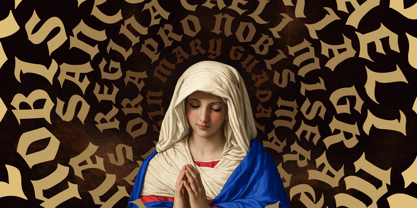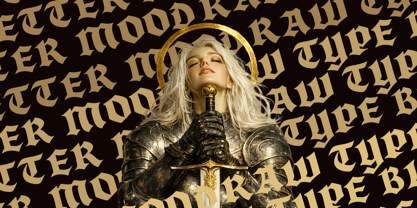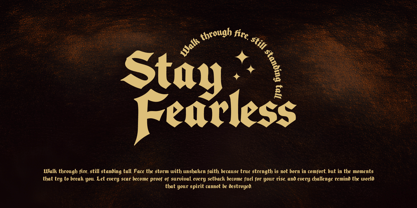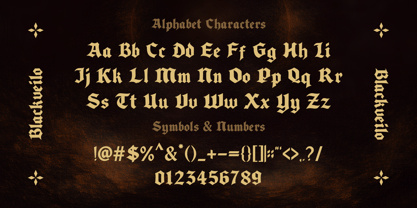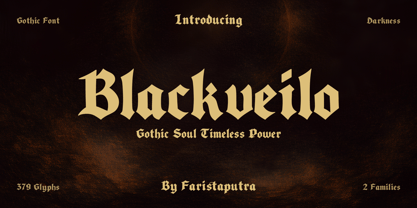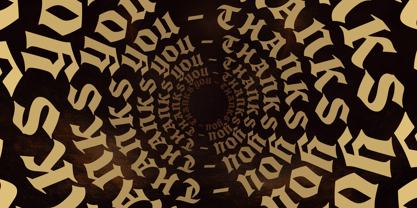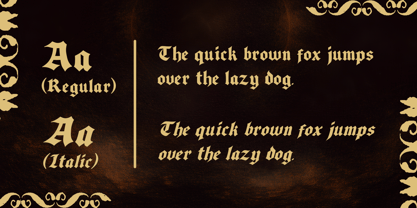
Blackveilo
von Faristaputra
Die Schriftfamilie Blackveilo wurde von Frederik Aristaputra entworfen und von Faristaputra veröffentlicht. Blackveilo enthält 2 Stile und Familienpaketoptionen. Mehr über diese Familie
Blackveilo is a gothic blackletter display font that seamlessly blends dark elegance with timeless strength. Drawing inspiration from medieval letterforms, it showcases bold shapes, sharp details, and a commanding visual presence that instantly adds drama and character to any design. Ideal for logos, posters, branding, album covers, apparel, packaging, and various display projects, Blackveilo is crafted for designs that require a bold, classic, and unforgettable gothic aesthetic.
Designer: Frederik Aristaputra
Foundry: Faristaputra